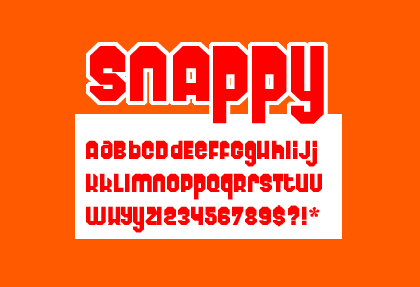
Snappy
This font is squarey. I guess it is kind of early sixties retro, but when I started it, that wasn't what I had in mind. I don't really remember what I had in mind when I was making it. Actually I wasn't even born in the sixties. Actually, now I need to go eat. I am hungry!